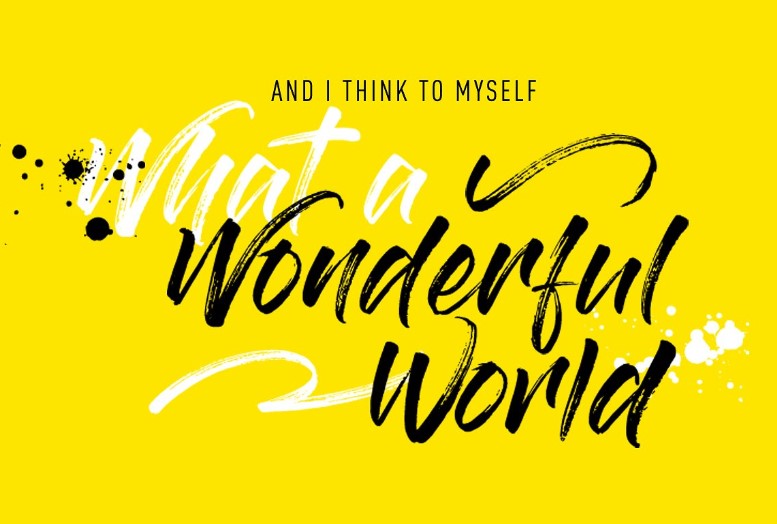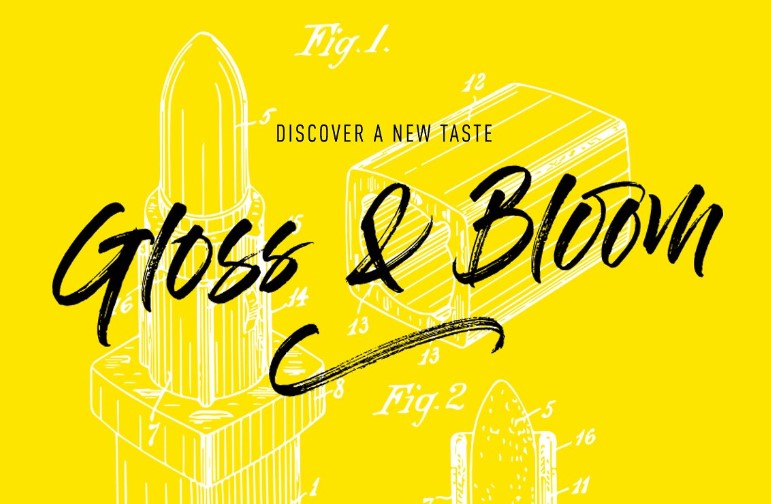
Gloss and Bloom Font
Gloss and Bloom Font is used in Adobe. This typeface is mostly used in the Andriod mobiles and also in the MAC devices and also for text generation. Those are hand-drawn fonts that genuinely supply off an actual personal contact for your responsibilities. It’s also one of the maximum used fonts in the google fonts.
This font is likewise used within the poster specific sports or something that goals the hand-drawn flavor. Thanks very lots to the studio, this demo font is for personal use excellent! Gloss and Bloom Font Free but, any donation can be very desired. Meet moon font that is right for several duties collectively with the editorial format, branding, pix fees, garb layout, and so forth.